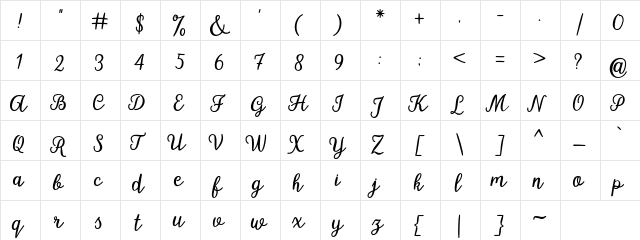
hillania font Regular
Design Context for hillania font Typeface
hillania font is a composed and adaptable typeface that performs quietly and consistently across a wide range of design contexts.